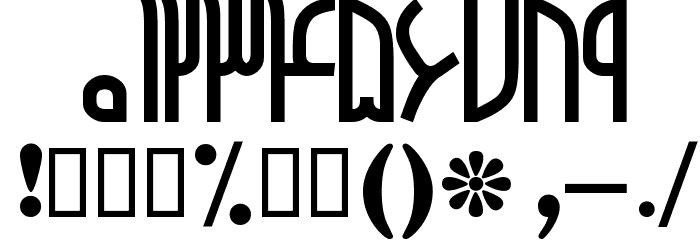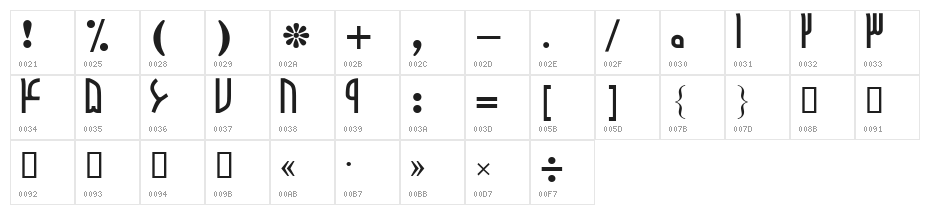
Arghawaan Font
Arghawaan Description
This font features a unique and artistic design with a distinct geometric style. The characters are elongated and have a futuristic appearance, with sharp angles and clean lines. The uppercase letters are particularly striking, with a bold presence that commands attention. The lowercase letters maintain the same geometric theme, offering a cohesive look throughout the typeface. Numbers and special characters are designed to match the overall aesthetic, making this font suitable for creative and modern projects.
A geometric and futuristic font with elongated, sharp characters from Uncategorized fonts.
- Proposed Projects: Ideal for sci-fi themed designs, modern branding, posters, and digital artwork.